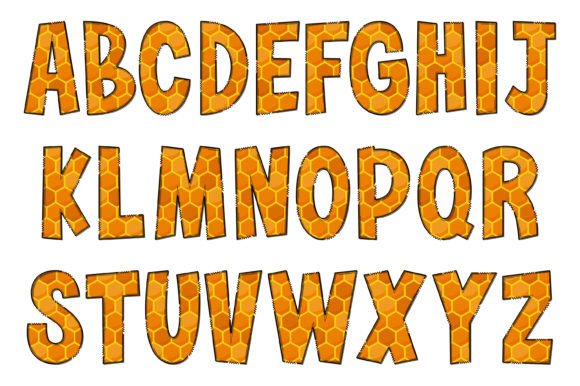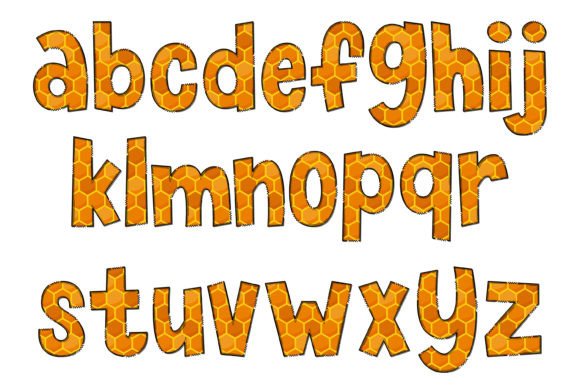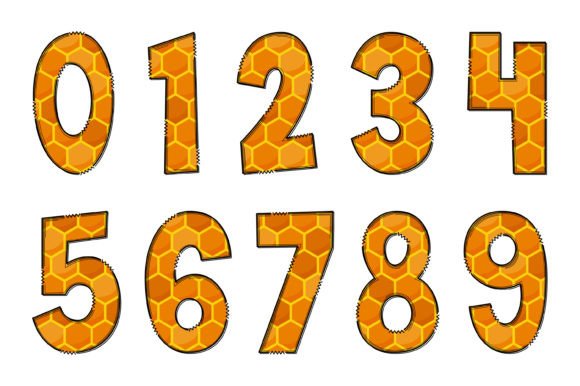
Creating Whimsy with Typography: The Magic of Honeycomb Font
As a designer, you’ve probably had those moments when a spark of creativity strikes, and you can’t wait to bring your ideas to life. For me, it was while flipping through a vintage children’s book that I stumbled upon a font that captured my attention – a quirky, playful font that seemed to dance off the page. That font was none other than the iconic Honeycomb Font, known for its unique, hexagonal cells that add a touch of whimsy to any design.
The Honeycomb Font is a versatile and charming typeface that’s perfect for designs aiming to evoke a sense of playfulness and creativity. Whether it’s a children’s book, a poster, or a greeting card, this font is sure to captivate your audience and leave a lasting impression. For designers, the Honeycomb Font is a valuable asset, offering a distinctive look that’s both fun and easy to read.
Honeycomb Font Key Features
- Unique Characteristics: The Honeycomb Font features a distinctive, hexagonal cell structure that gives it a unique and eye-catching appearance. The font is designed to be highly legible and versatile, making it suitable for use in a wide range of contexts.
Honeycomb Font Review
Overall, I think the Honeycomb Font has some great qualities, but also some notable limitations. Let’s dive in and explore what makes it tick.
- ✨ Unique aesthetic: The Honeycomb Font has a distinctive, eye-catching design that’s sure to grab attention.
- ✨ High-quality rendering: The font renders well in a variety of sizes and resolutions, making it a great choice for digital applications.
- ✨ Versatile: The font comes in a range of weights and styles, making it suitable for a wide range of uses, from body text to headlines.
- ⚠️ Limited language support: The font may not include the full range of characters required for certain languages, which could be a problem for international applications.
- ⚠️ Limited contextual pairing: While the font looks great on its own, it may not pair well with other fonts, which could limit its versatility in certain contexts.
The Honeycomb Font is a solid choice for anyone looking for a unique, high-quality font. While it may have some limitations, its strengths make it a great addition to any design arsenal.
Getting the Most Out of Honeycomb Font
To get the most out of Honeycomb font, try using it in bold or italic styles to add emphasis to your text. You can also use it in combination with other fonts to create a unique and eye-catching design. Experiment with different font sizes and colors to find the perfect look for your project.
Honeycomb font is perfect for use in wedding invitations, baby shower invitations, and other special occasion designs. It’s also great for use in food and drink branding, such as labels and menus. Try using it to add a touch of whimsy and fun to your designs.